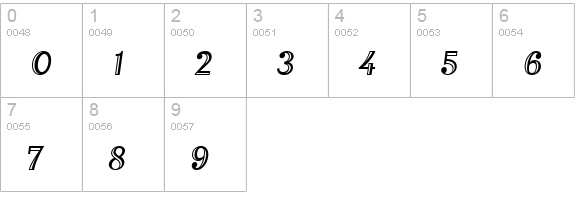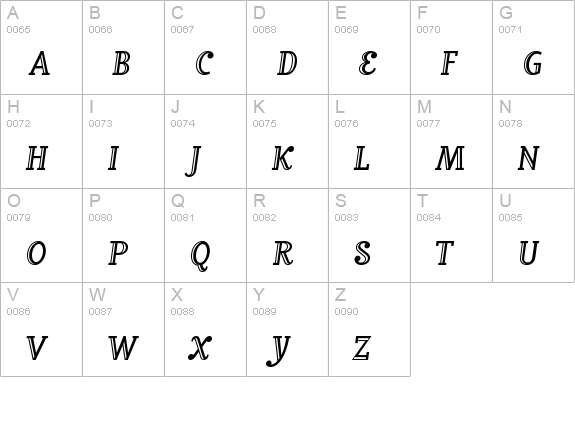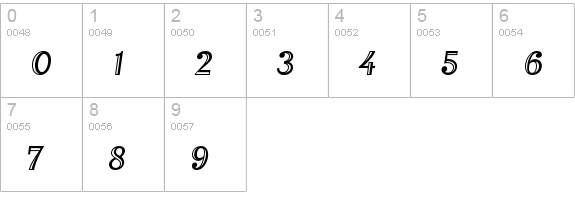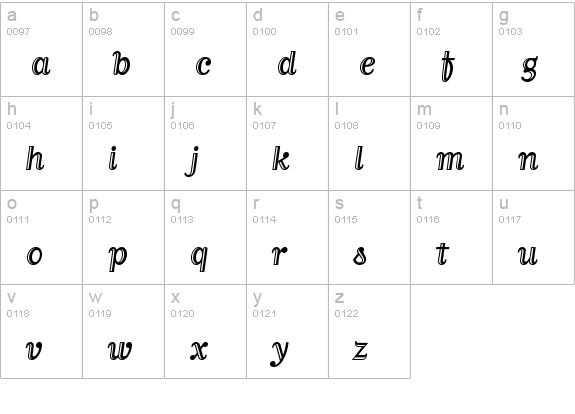
MatrixInlineScriptLining Regular Font Details
MatrixInlineScriptLining Regular is the standard, neutral variant in the MatrixInlineScriptLining typeface family \xE2\x80\x94 well suited to general body text, paragraphs, and standard typographic work.
MatrixInlineScriptLining Regular is a stylish and modern font that exudes elegance and sophistication. Its clean lines and sleek design make it perfect for a wide range of design projects, from branding to packaging to invitations. The font features a unique inline script style that adds a touch of playfulness and creativity to any design. Best of all, MatrixInlineScriptLining Regular is available for free download at FontsMarket.com. This means you can easily add this beautiful font to your collection without spending a dime. Whether you're a professional designer or a hobbyist looking to spruce up your projects, MatrixInlineScriptLining Regular is sure to impress with its versatility and charm. Download it today and elevate your designs with this stunning typeface.